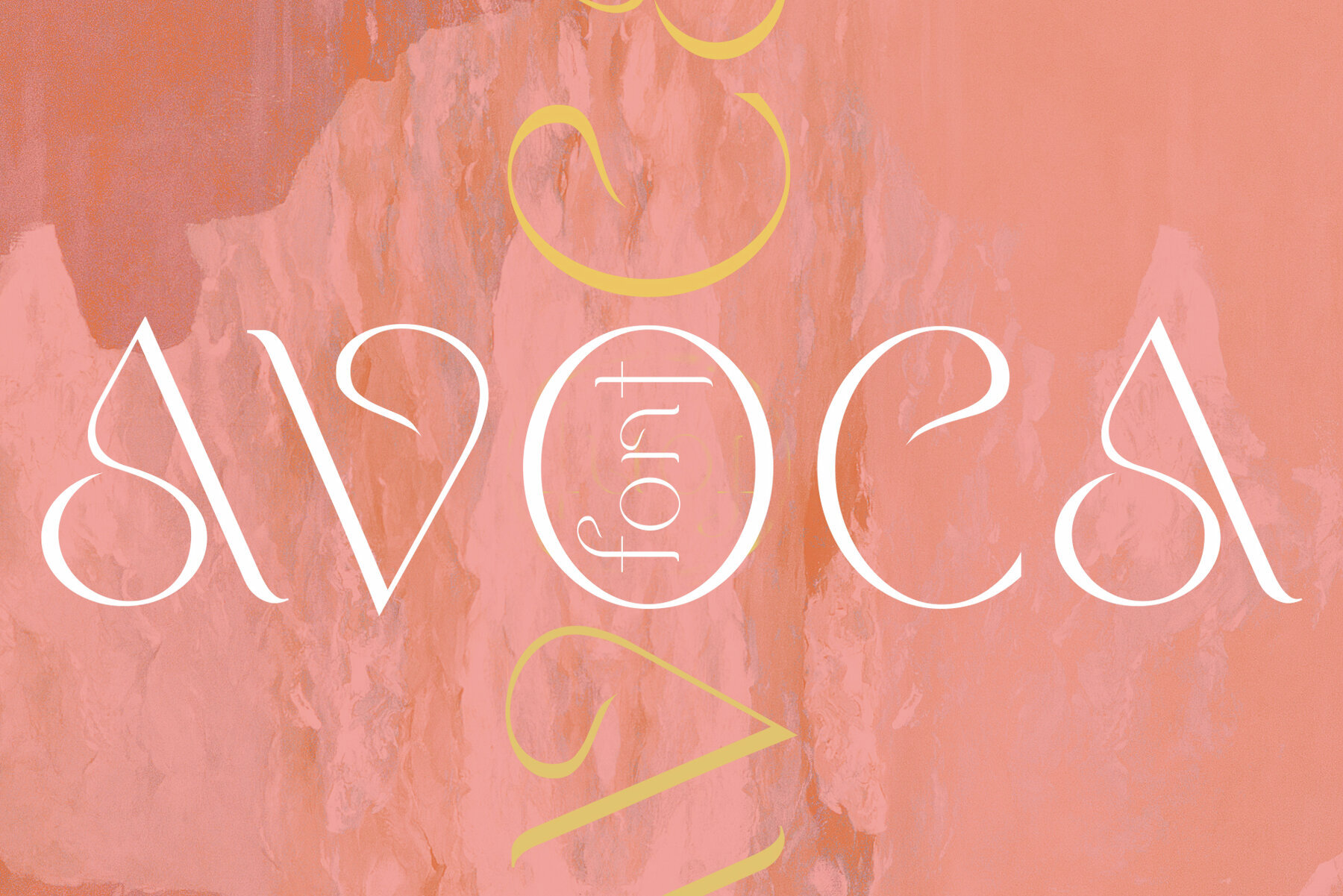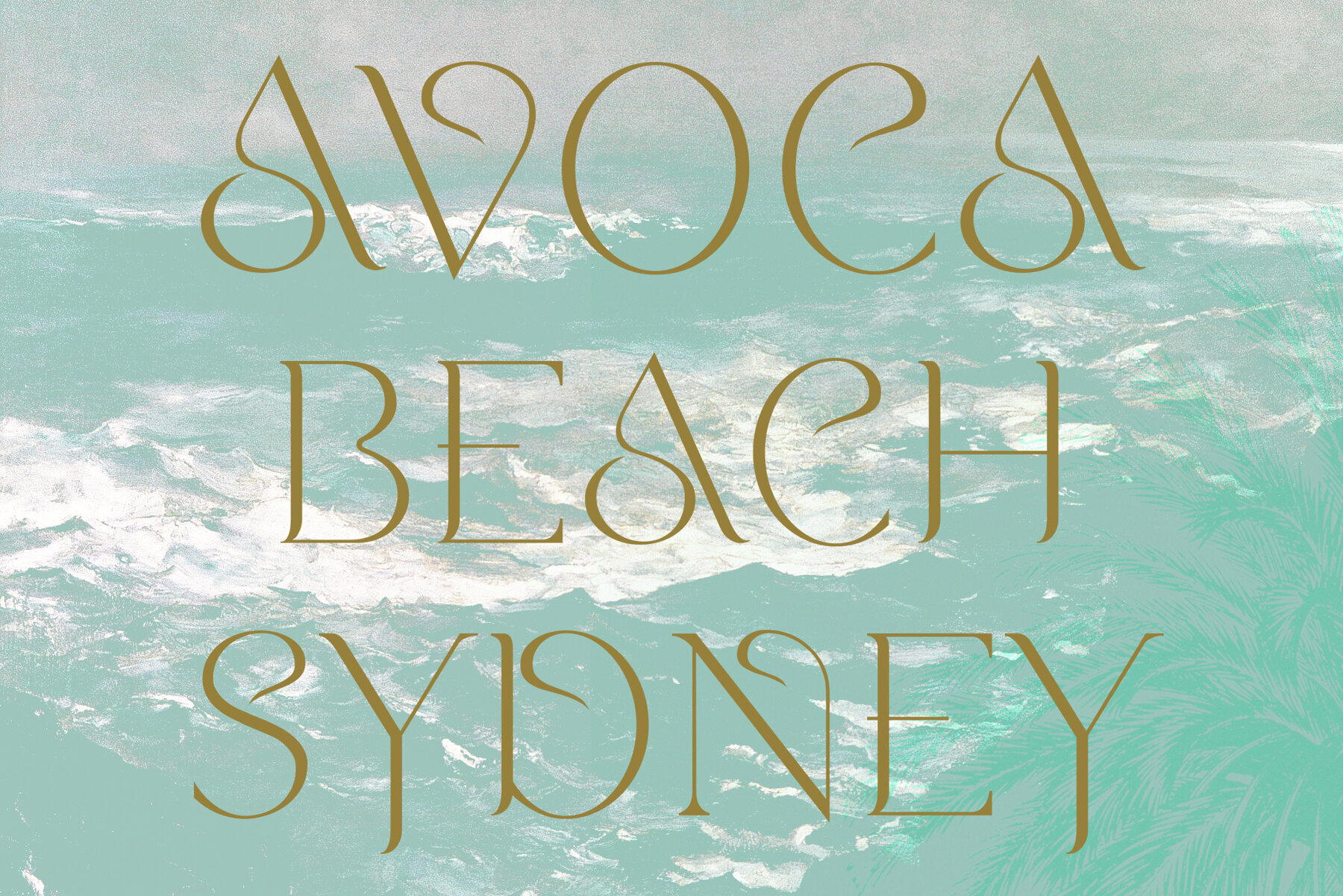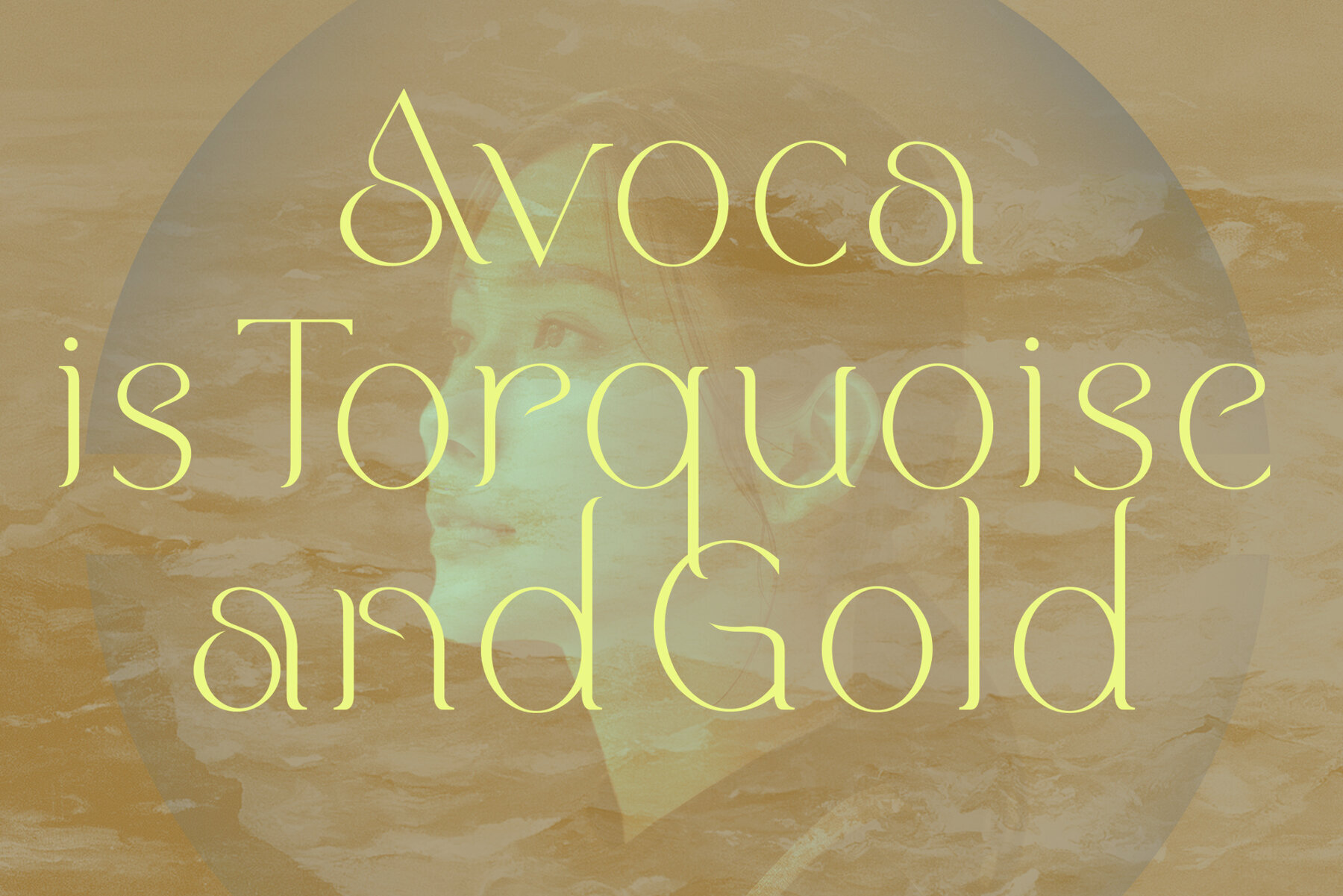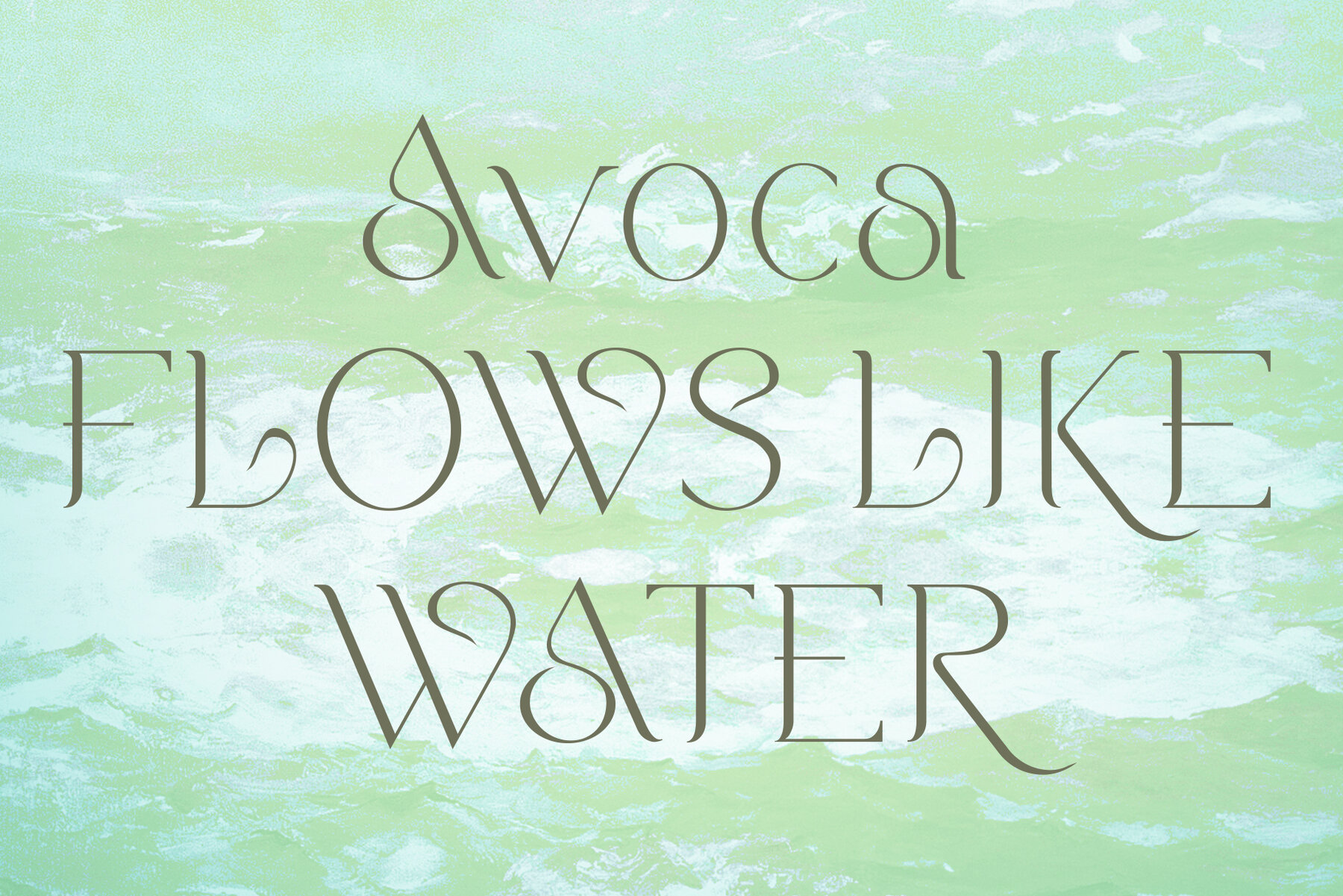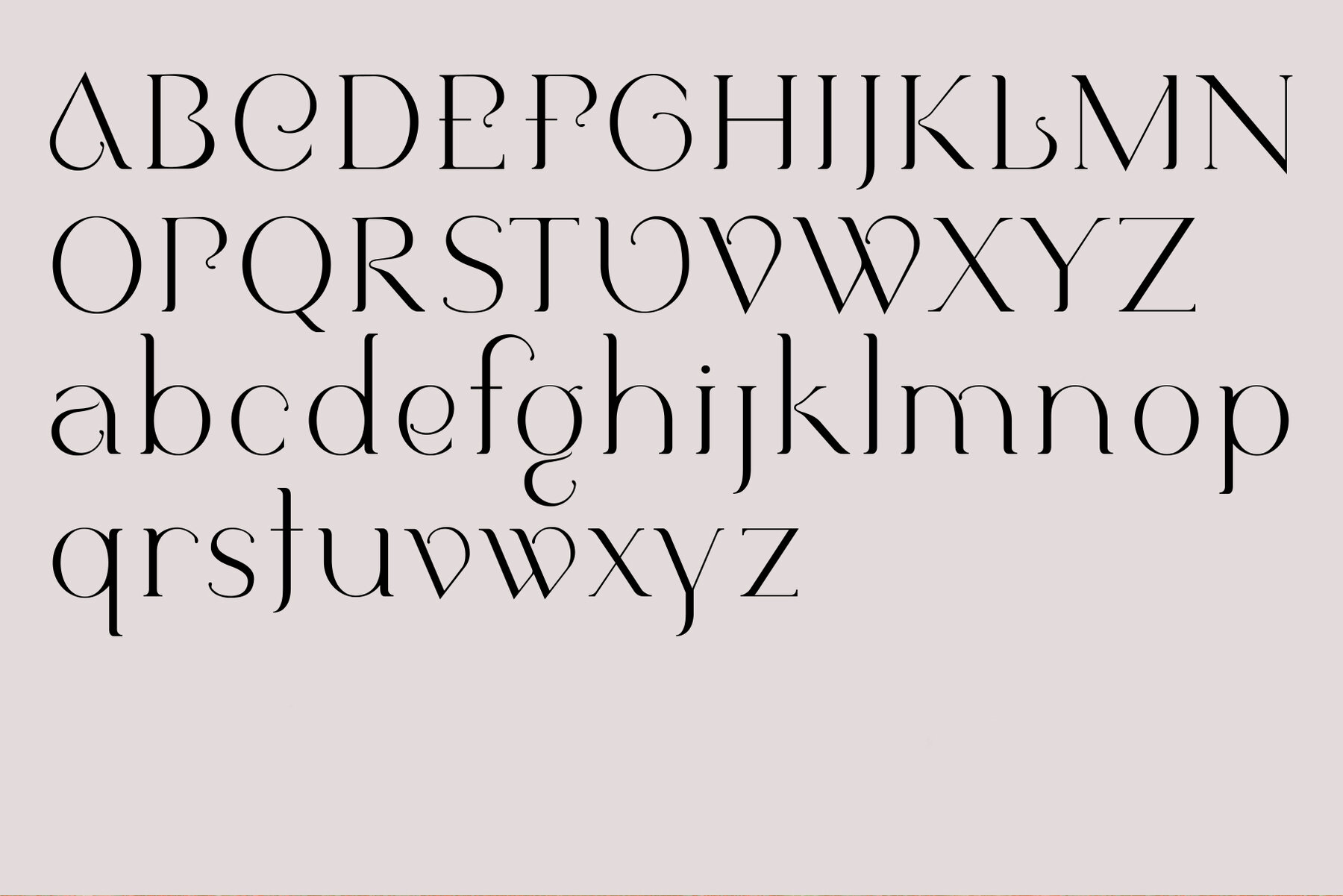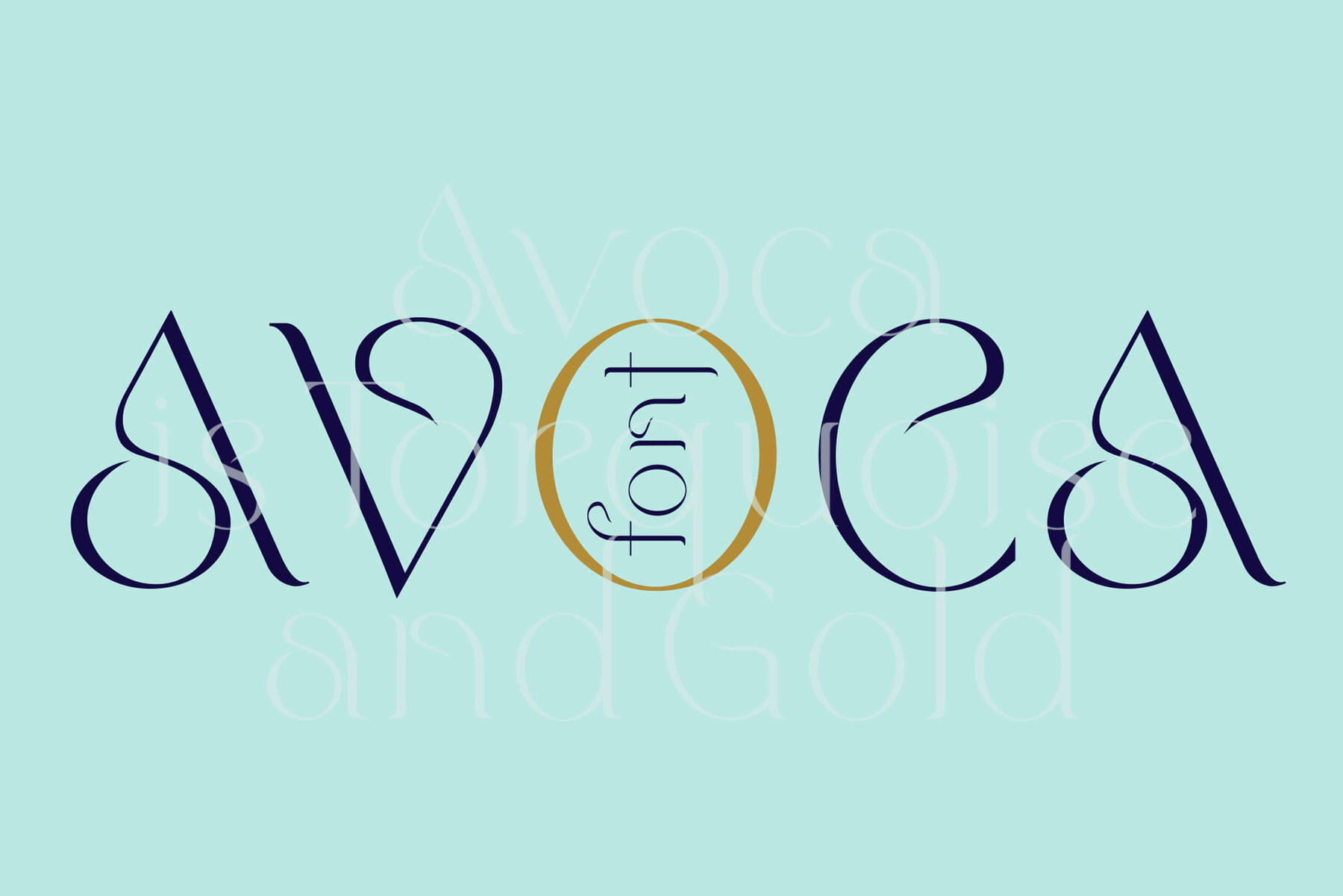
Avoca Font
Avoca is a chic new social media-friendly serif font loaded with personality and identity, inspired by childhood days spent at the beach in my hometown - Sydney. I always wanted to create a font that echoed the feel of the waves and of the sea around Sydney but wanted to avoid the cliche and 'theme-park' looks of all those repetitive beach style script and retro fonts. So with Avoca you'll get a lovely flow to the letters, but in a classic serif font with just enough design twists to make it feel modern and playful. I did this so the usage of Avoca can extend to more design projects in print and online. I have used Avoca in boutique hotel branding, in F&B branding, in wedding designs, in packaging designs and online in websites, blogs, vlogs, Youtube creator and social media post titles. Avoca comes in 2 weights, and supports many European Languages.